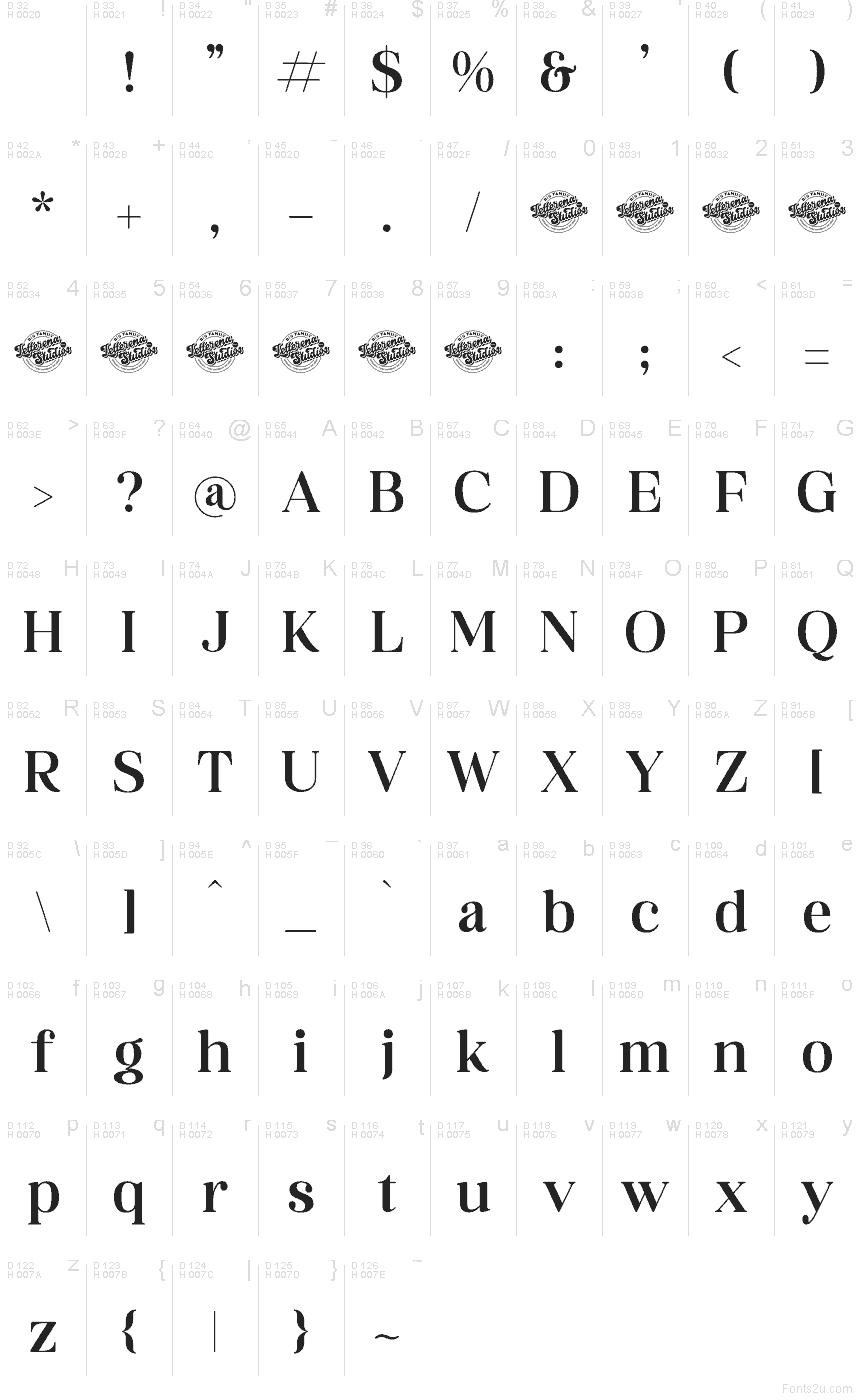
Ralgine font by Letterena Studios is a free serif typeface that feels both lush and controlled, with inky, full-bodied curves that settle into crisp, vertical strokes. The letters have a sculpted, almost carved quality—broad bowls, tight inner spaces, and subtly flared details that give each word a sense of poise and weight. It looks expensive without trying too hard, making short headlines and names feel instantly branded.
Using Ralgine, you can give logos, boutique packaging, book covers, editorial titles, and social campaign graphics a strong, stylish backbone. This free font shines when you let it breathe at larger sizes, where its bold contours and smooth curves can really show. Pair Ralgine with a clean geometric sans in smaller text to balance its rich personality and keep your layouts feeling modern and refined.